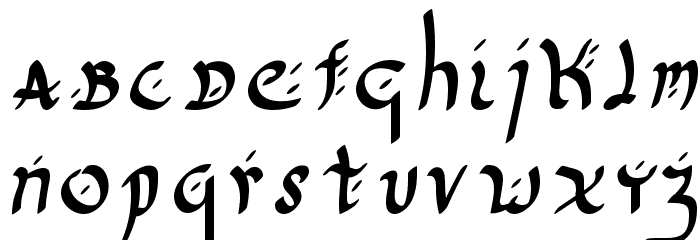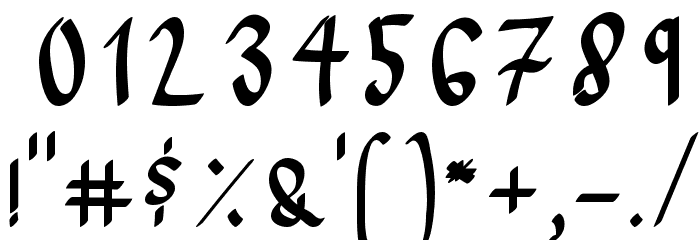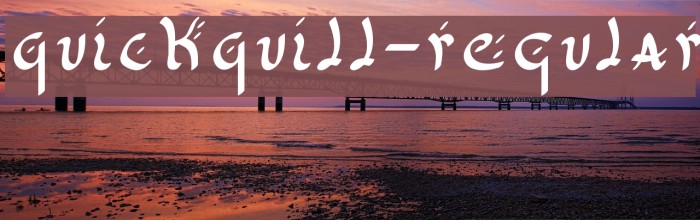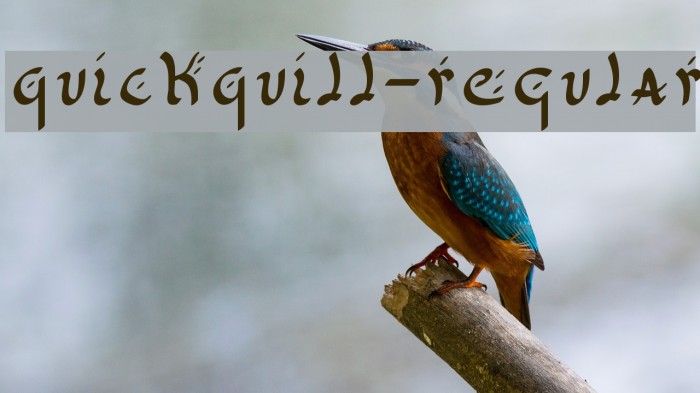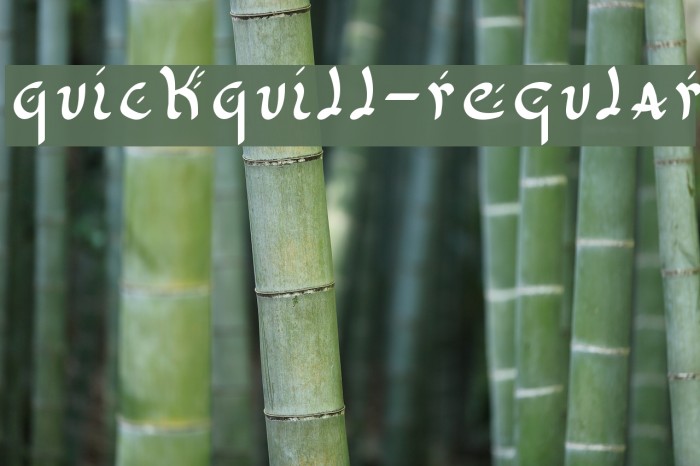
QuickQuill-Regular Font
This font features a unique and artistic style with a calligraphic flair. The characters are designed with a combination of sharp and smooth curves, giving it a dynamic and flowing appearance. The uppercase letters are bold and slightly ornate, while the lowercase letters maintain a consistent rhythm with elegant strokes. The numbers and special characters are crafted to match the overall aesthetic, making it suitable for creative projects. The font's distinct style is both eye-catching and versatile, perfect for adding a touch of sophistication and creativity to any design.
A calligraphic font with dynamic curves and artistic flair.
- Proposed Projects: Ideal for invitations, greeting cards, branding, and artistic posters.
- Use Case: Logos, Headlines, Artistic projects